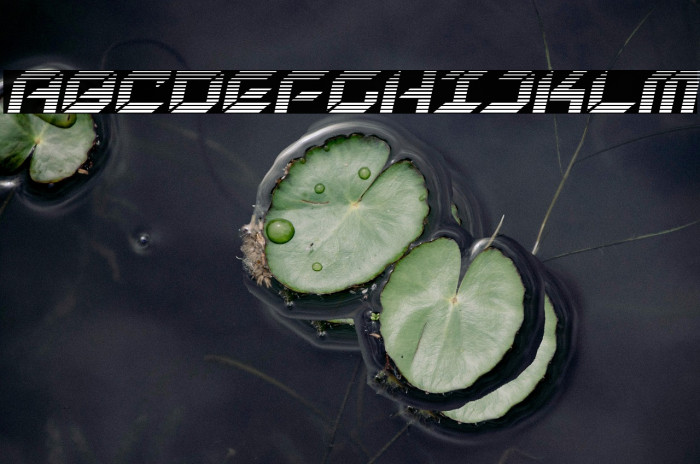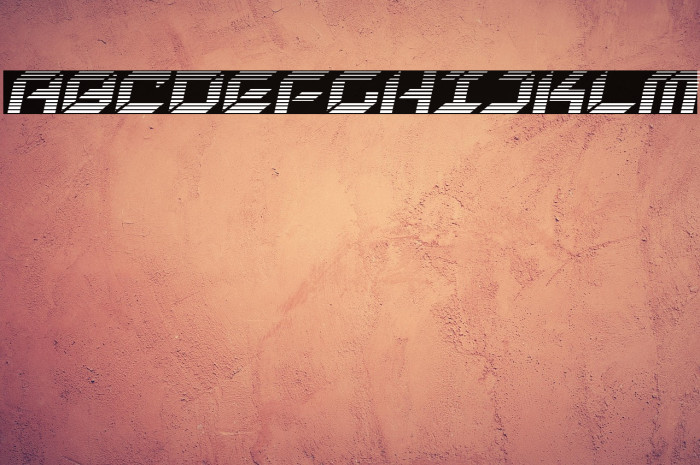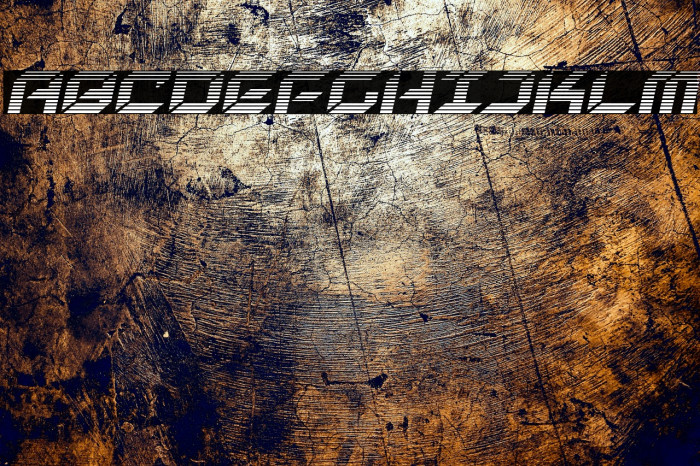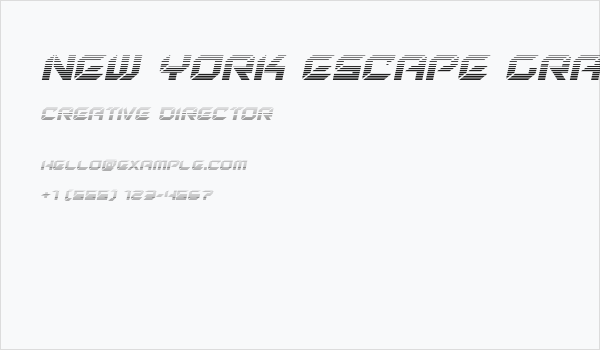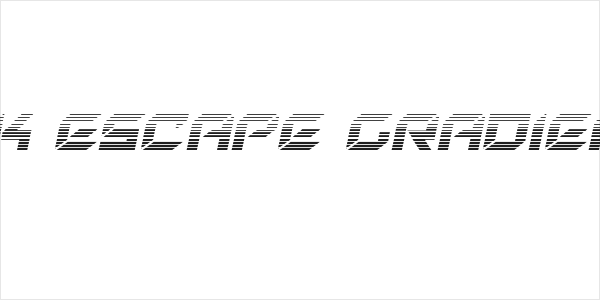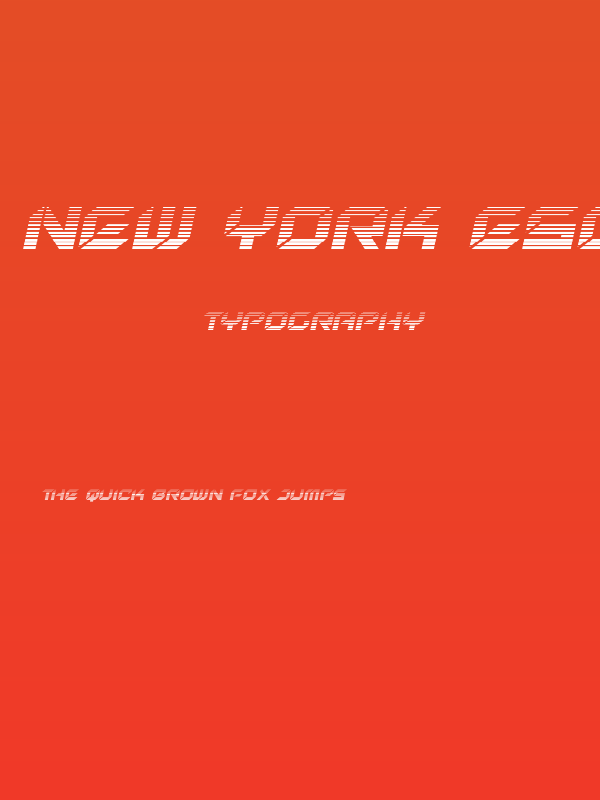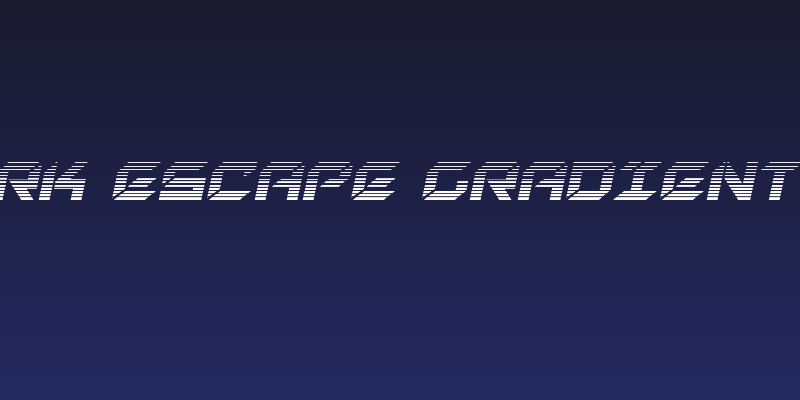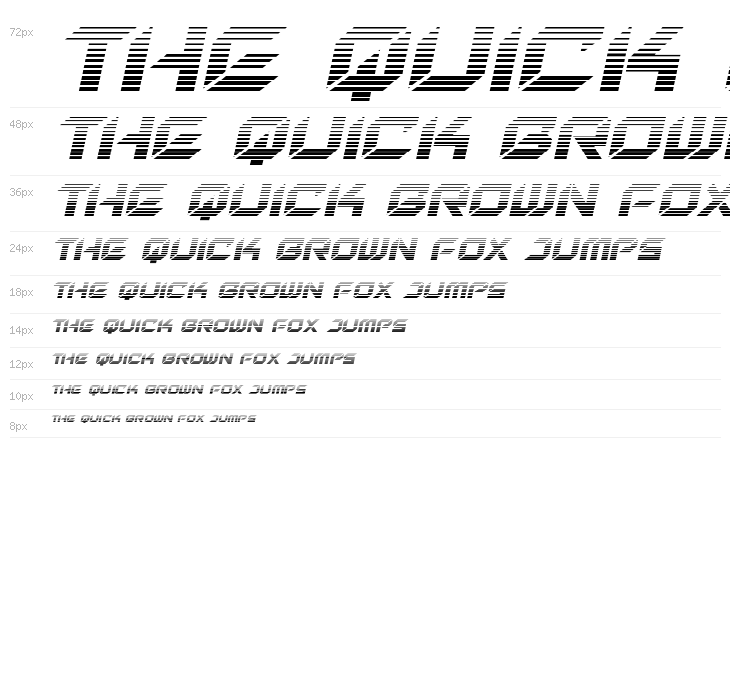
New York Escape Gradient Italic Font
New York Escape Gradient Italic Description
This font features a dynamic, futuristic design with a gradient effect that gives each character a sense of movement and depth. The italicized style adds a sleek, forward-leaning appearance, enhancing its modern and energetic feel. The characters are composed of horizontal lines that create a striped pattern, contributing to its unique visual appeal. This font is particularly striking in larger sizes where the gradient and line details can be fully appreciated. The overall look is bold and eye-catching, making it suitable for projects that require a strong visual impact.
| Proposed Projects | Ideal for sci-fi themed designs, tech branding, video game titles, and futuristic posters. |